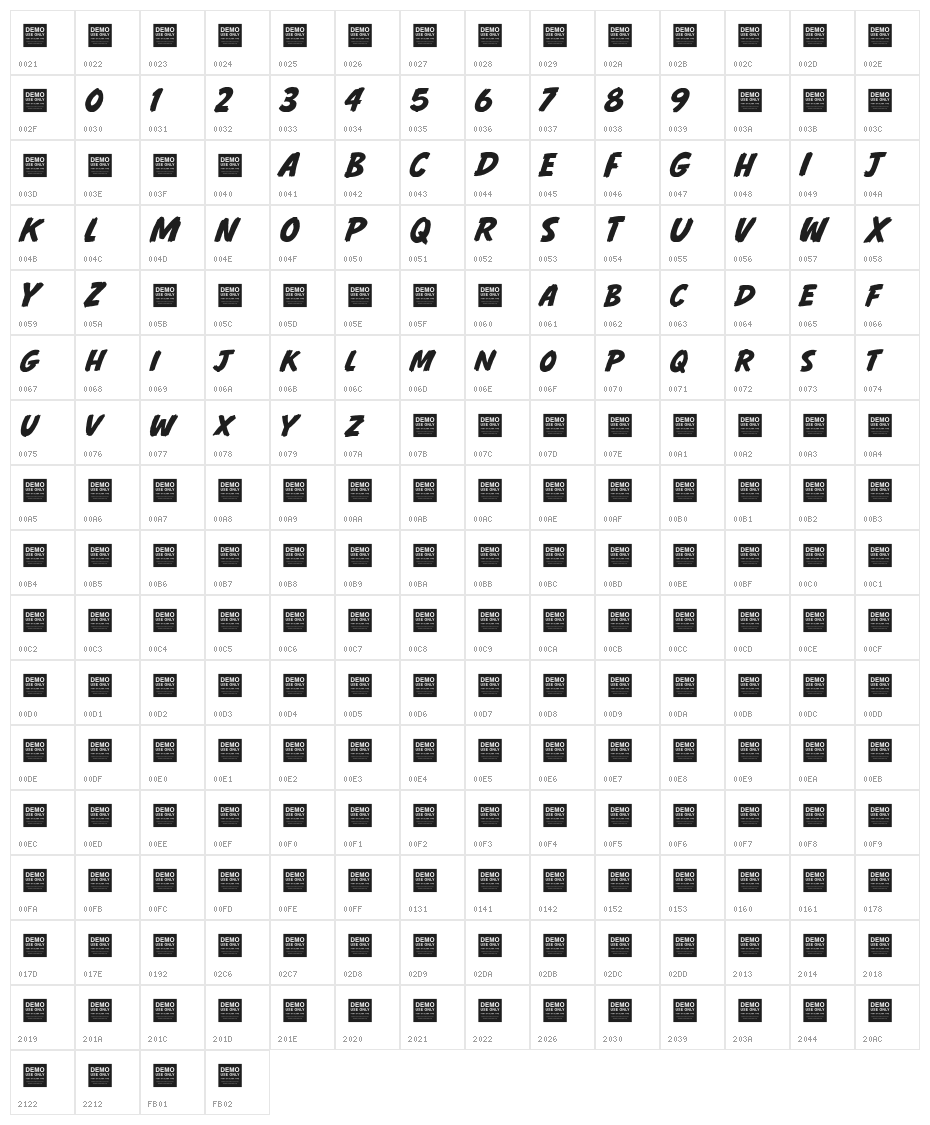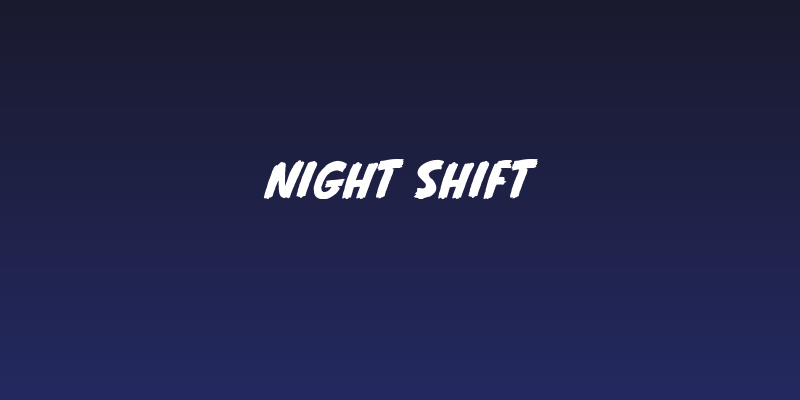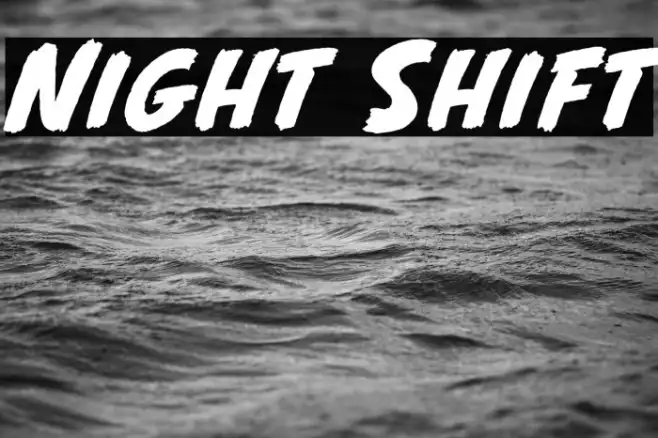
Night Shift Font
Night Shift Description
This font exhibits a bold and dynamic style, characterized by its brush-like strokes that convey a sense of movement and energy. The uppercase and lowercase letters maintain a consistent thickness, enhancing readability while adding a touch of artistic flair. The numbers follow the same stylistic approach, ensuring uniformity across all characters. The font's design is reminiscent of hand-painted signage, making it ideal for projects that require a personal and impactful touch. Its bold presence is suitable for making statements, whether in headlines or logos, where attention-grabbing aesthetics are desired.
| Proposed Projects | Ideal for branding, posters, headlines, and any creative project needing a bold, artistic touch. |